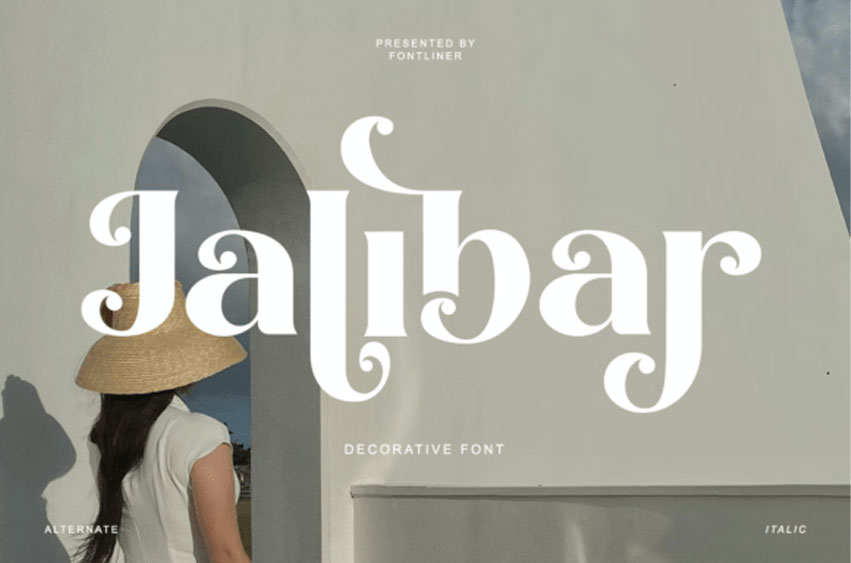
Jalibar Font
Jalibar Font is a gorgeous decorative font that fits incredibly well for this time of the year.
No matter the topic, this font will be an incredible asset to your font library, as it has the potential to elevate any creation.